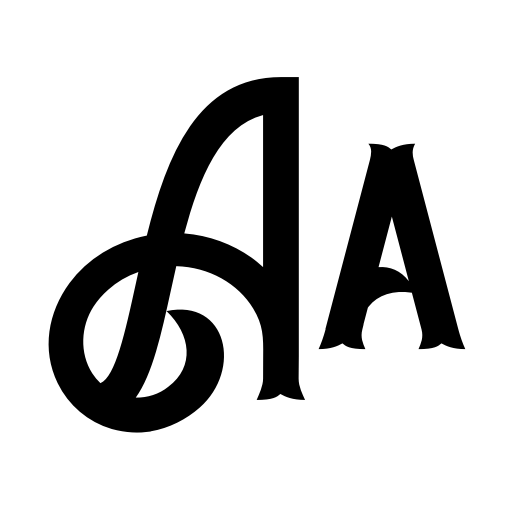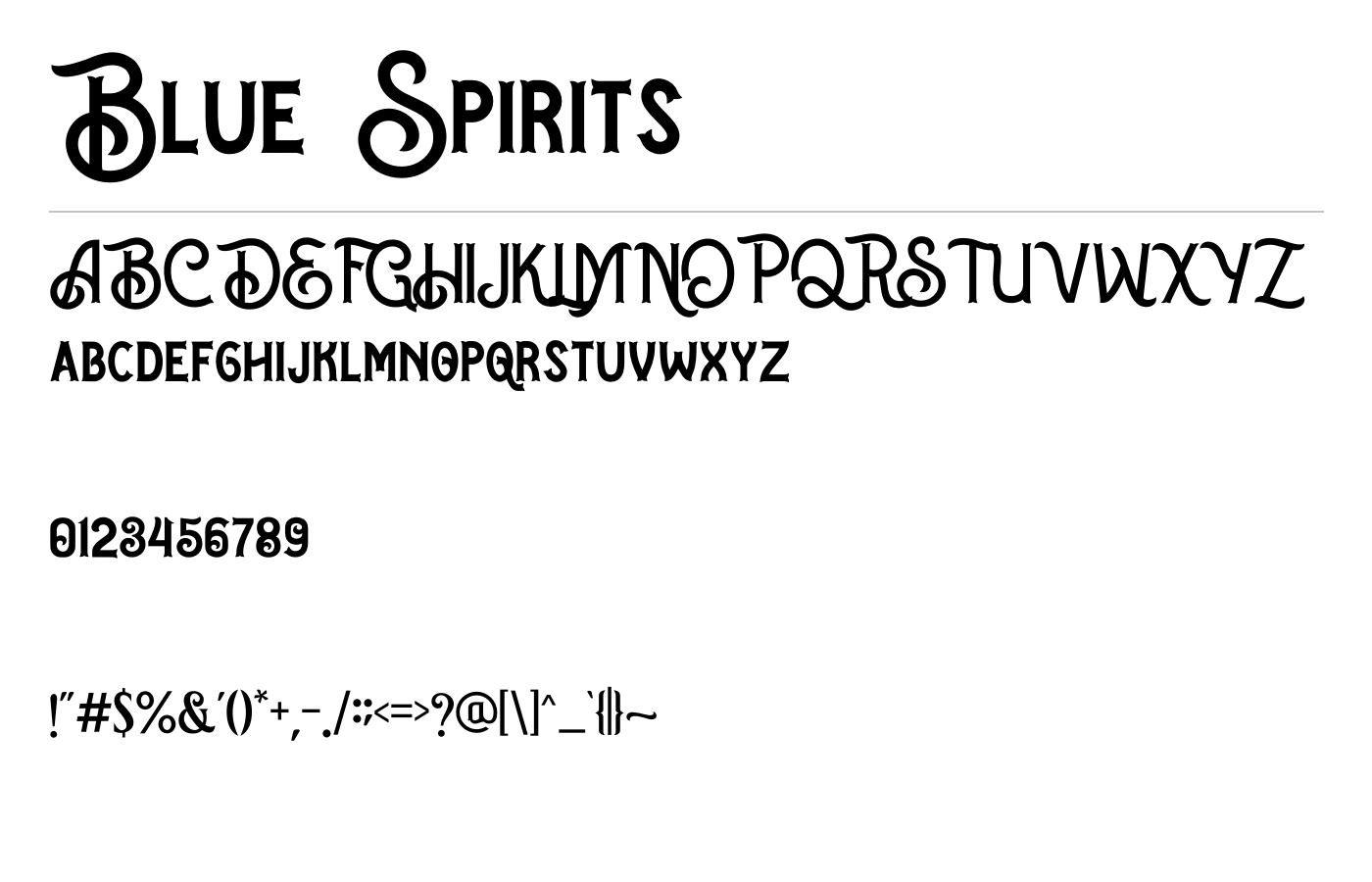
Blue Spirits is a distinctive serif font with a vintage, decorative flair, featuring unique, swirling details that add personality and charm. Its medium weight and moderate contrast make it ideal for eye-catching headlines, logos, or branding that seeks a nostalgic, whimsical, or artistic vibe. This font works best in creative and expressive contexts where a blend of elegance and playful character is desired.
Blue Spirits Font
About Blue Spirits Font